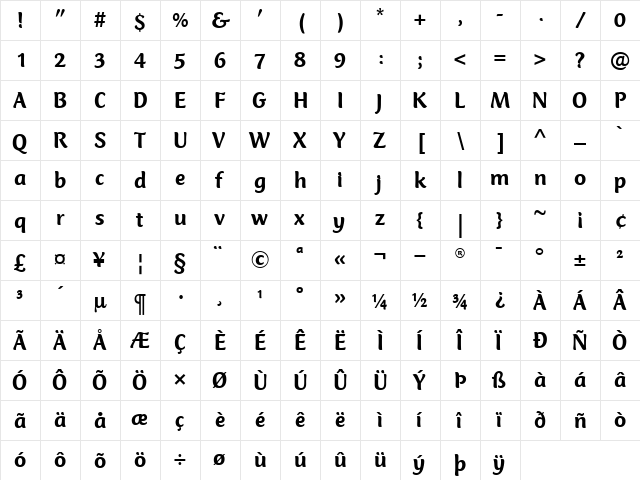
ClubTypeMercurius-Medium Medium
Design Context for ClubTypeMercurius-Medium Typeface
ClubTypeMercurius-Medium offers clean, dependable letterforms without strong stylistic allegiance, making it a practical choice for designers who need flexibility.
Pro Tip: Use ClubTypeMercurius-Medium in both headline and body roles to test its range before committing to a single application.